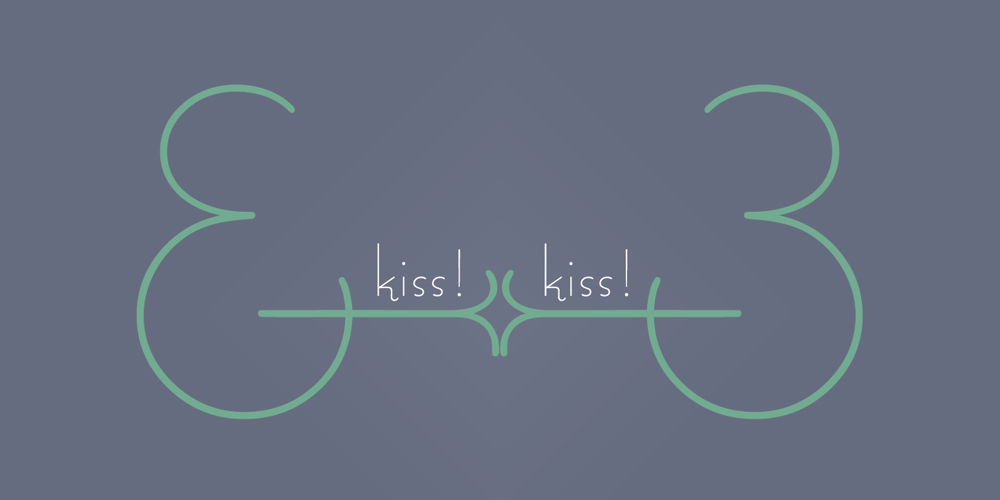
Bernhard Fashion Font Family was designed by Lucian Bernhard and published by Bitstream. Bernhard Fashion contains 1 styles and family package options. This is an American face designed by Lucian Bernhard for ATF in 1929. An extra light face with tall ascenders and stylized bars that extend off to the left. The lower-case sits on the baseline and the much-taller-than-normal capitals have an imaginary baseline that sits about two-thirds of the distance from the real baseline to the bottom of the EM.